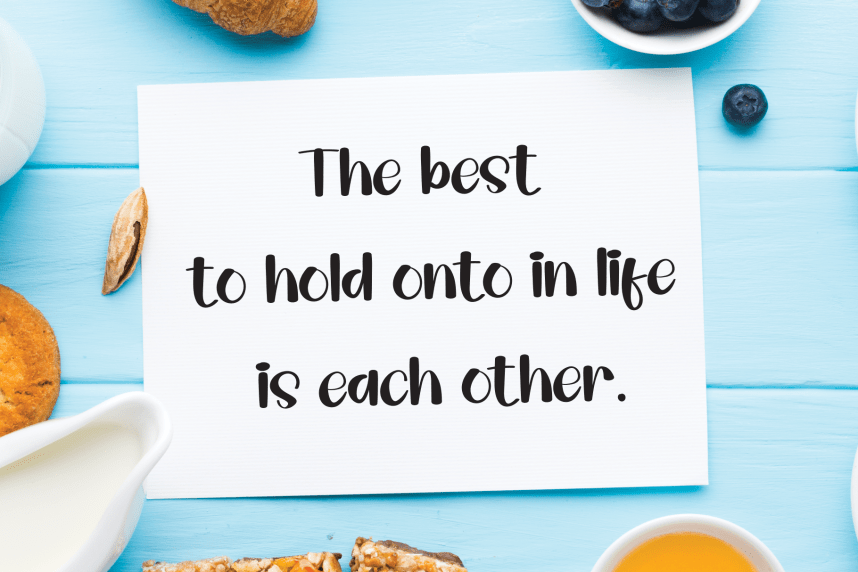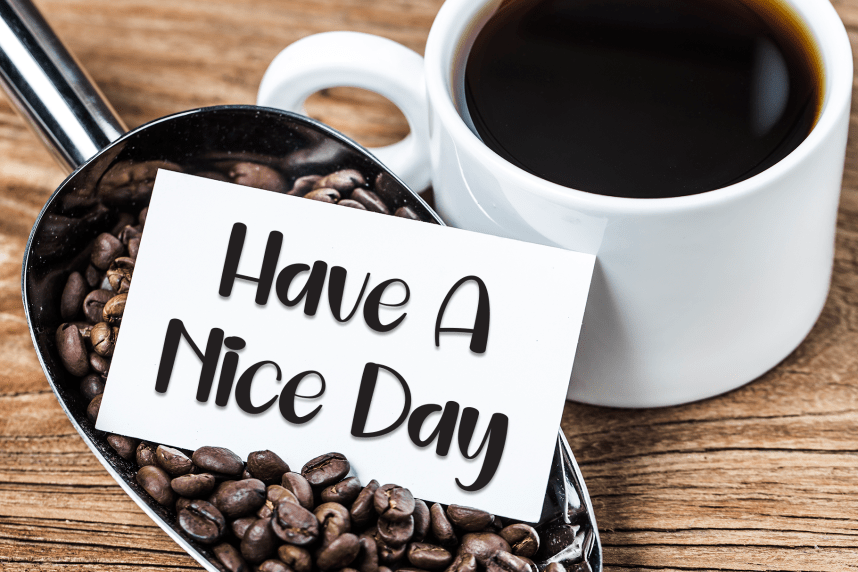
Monday Creative – New Handmade Font
Monday Creative – New Handmade Font is a sweet and friendly handwritten display font. Cute and fun, this font is ideal for writing wedding invitations, cards, or any other design that might need a playful touch!